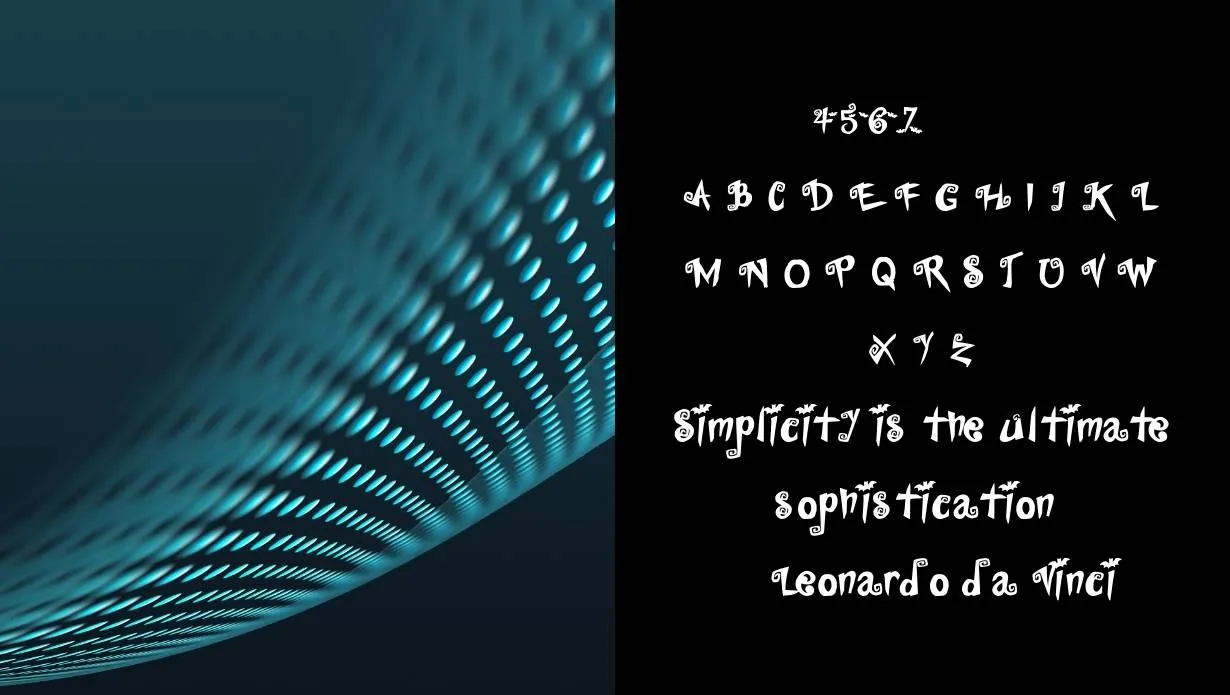
Vampirina Font is a fancy font that was developed and published by FontStudio LAB. This cute typeface was released in 2018. It is available in three special styles, Italic, Regular and Bold. This classy font contains a lot of swashes and flourishes which make it perfect for creating decorative text.
This amazing font was designed on the base of the very popular American Animated TV Series. You can use this font for various purposes like making cards, t-shirts, logos, quotes, posters, and much more.
It also includes support for many languages including Latin, Cyrillic, and Greek. You can also use its alternative obelix pro font.